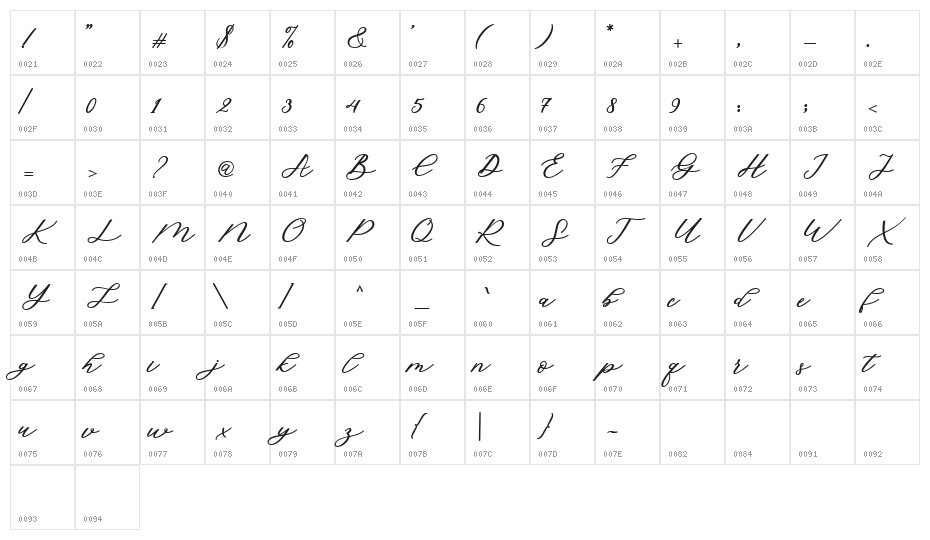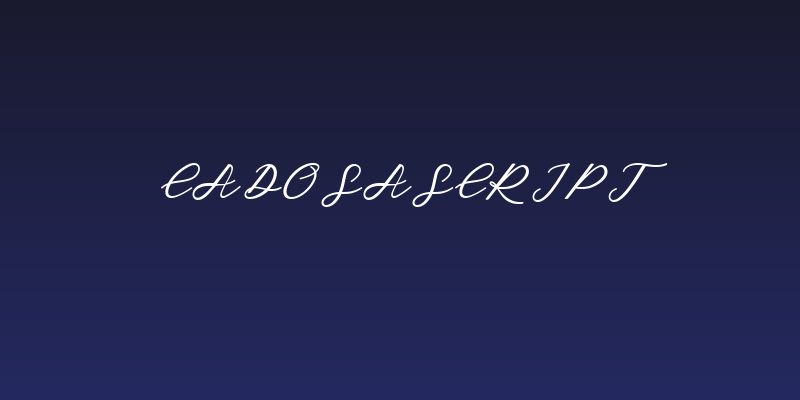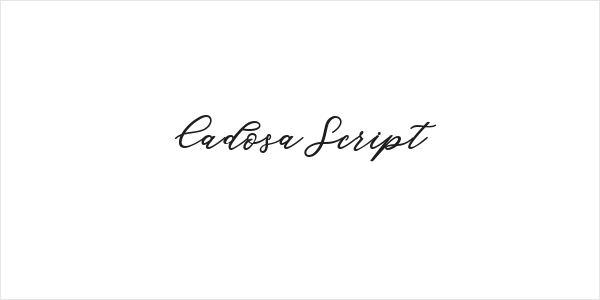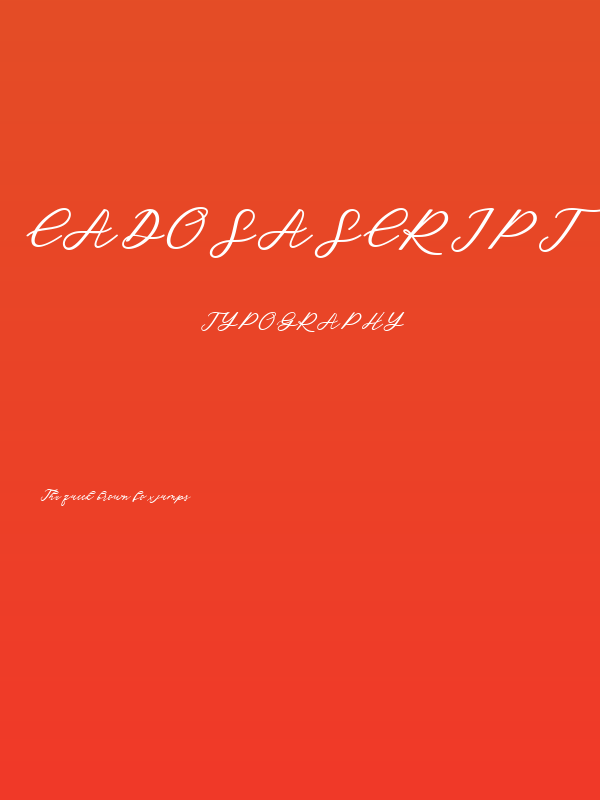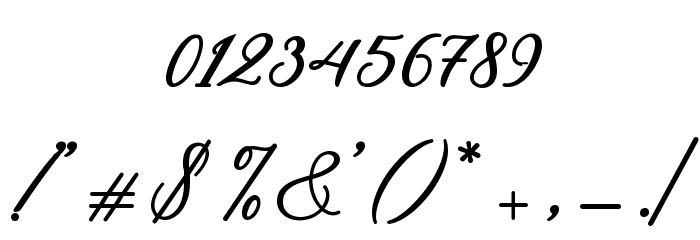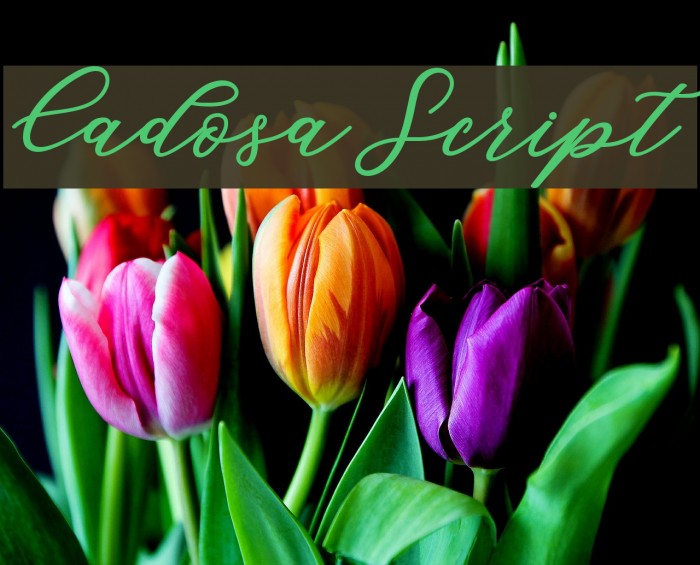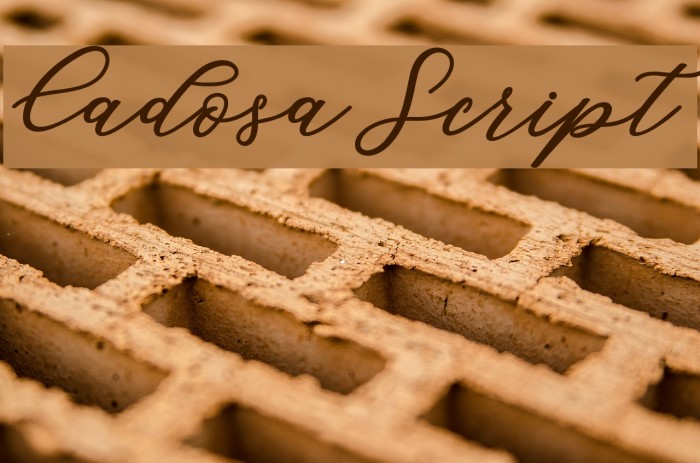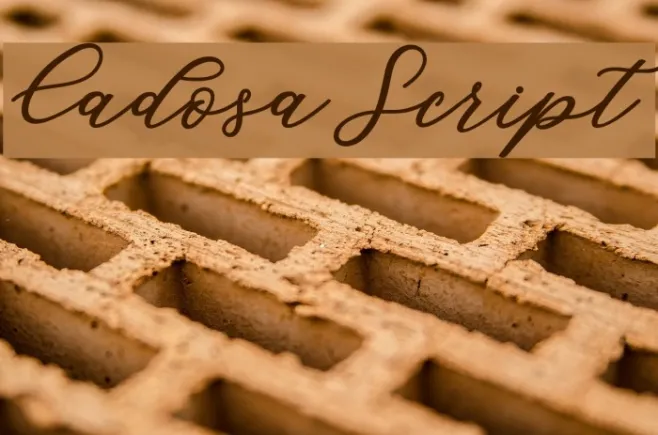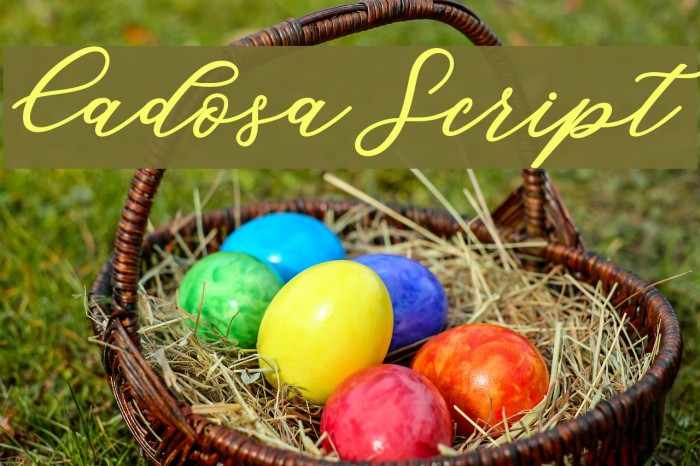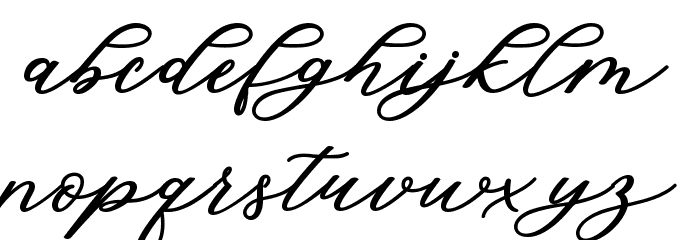
CadosaScript Font
CadosaScript Description
This elegant script font features fluid, connected strokes that mimic the natural flow of handwriting. The uppercase letters are gracefully elongated, with sweeping curves and loops that add a touch of sophistication. The lowercase letters maintain a consistent slant, enhancing the cursive style. Numbers and special characters are designed to complement the overall aesthetic, ensuring a cohesive look across all text. The font's delicate lines and smooth transitions make it ideal for projects that require a personal, handwritten touch.
| Proposed Projects | Ideal for wedding invitations, greeting cards, personal branding, and elegant logos. |